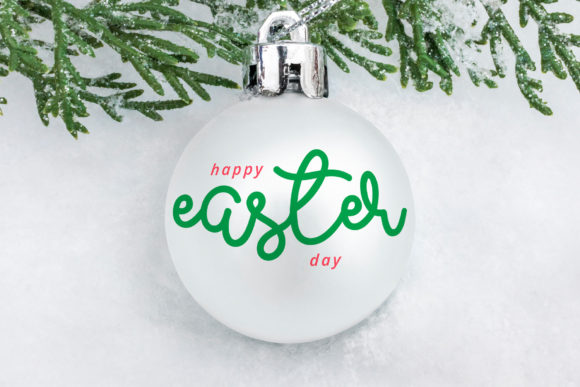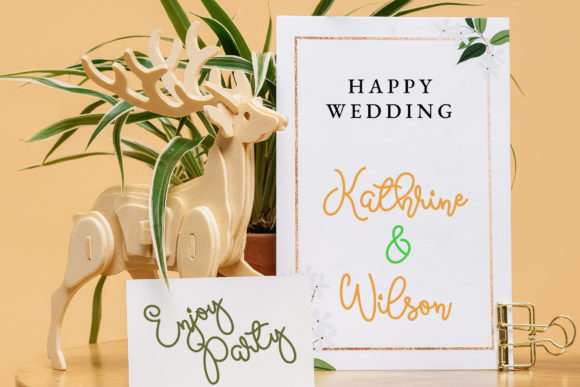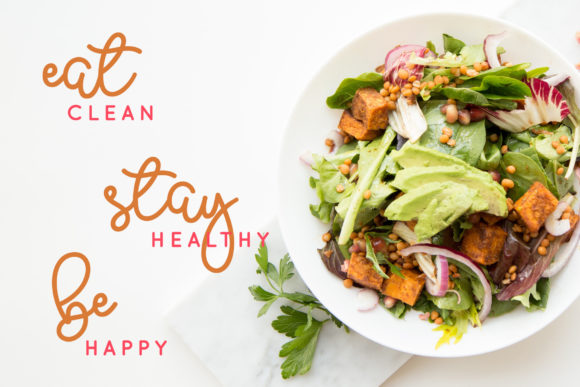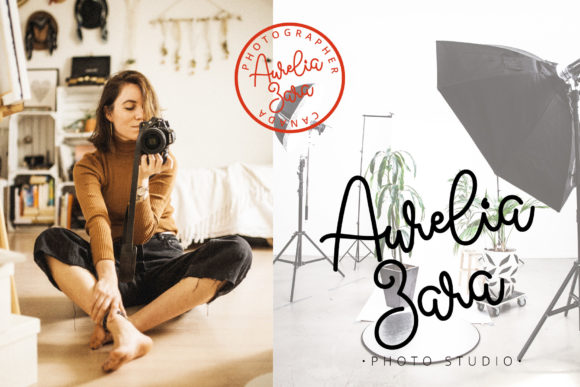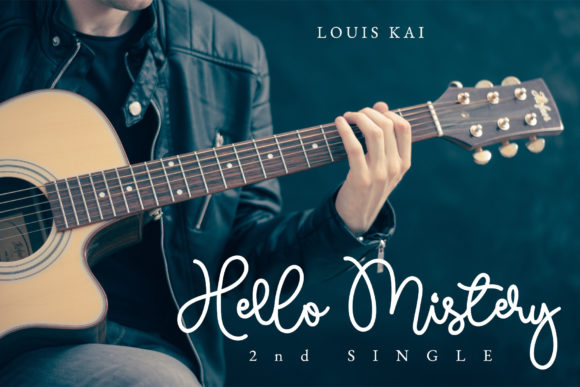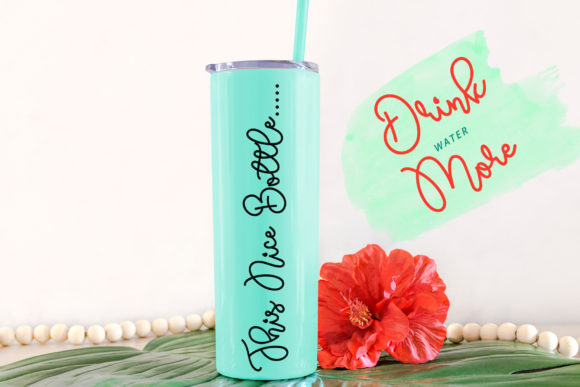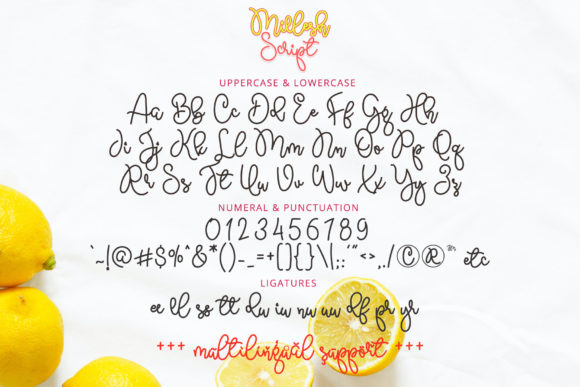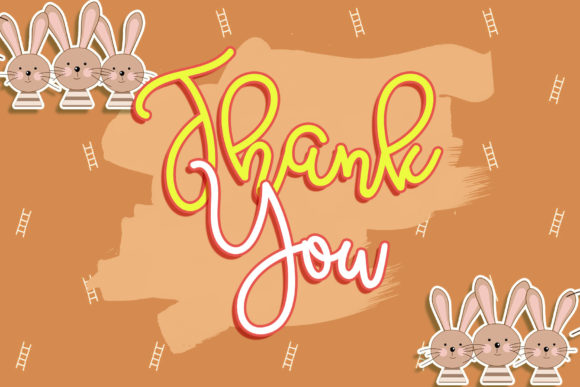
Millesh Script Font
About Millesh Script Font
Millesh Script is a simple, cute, and sweet handwritten font. It has a unique flow that makes any design look more quirky and original!